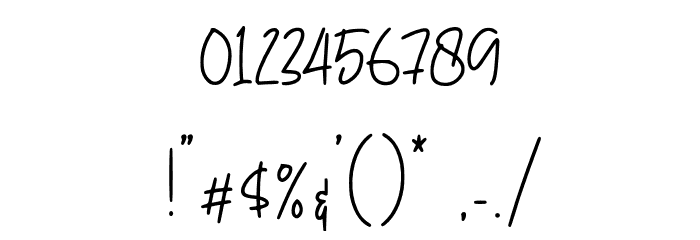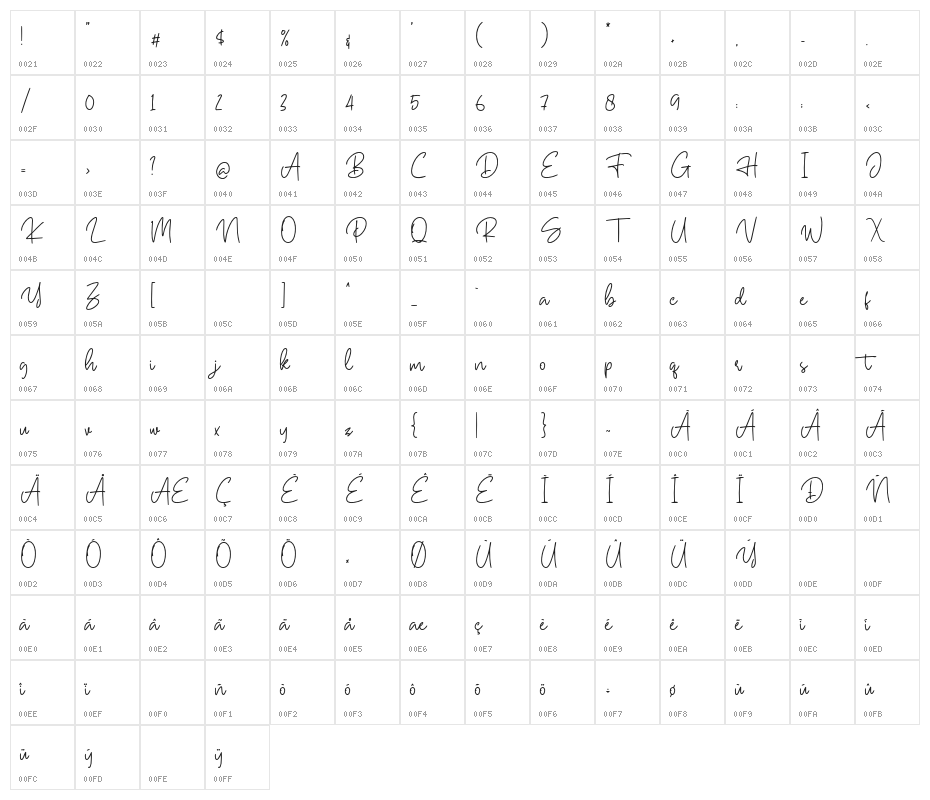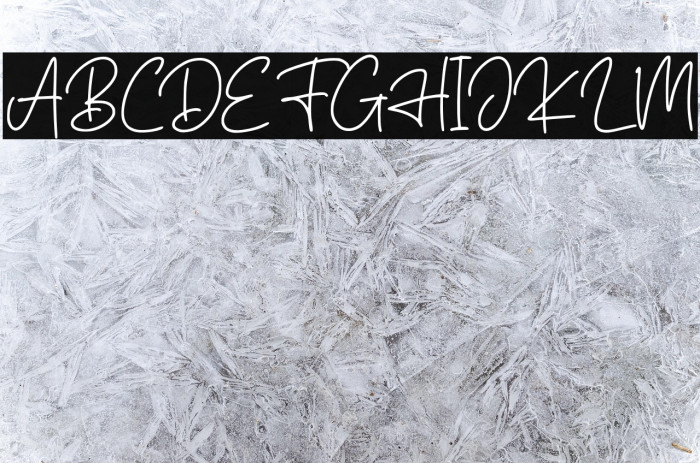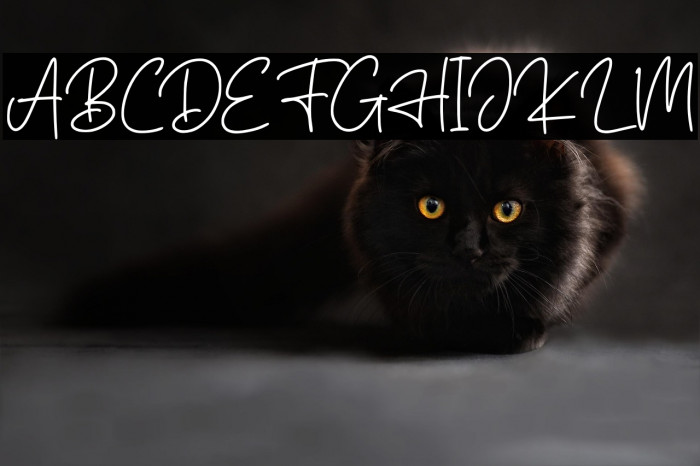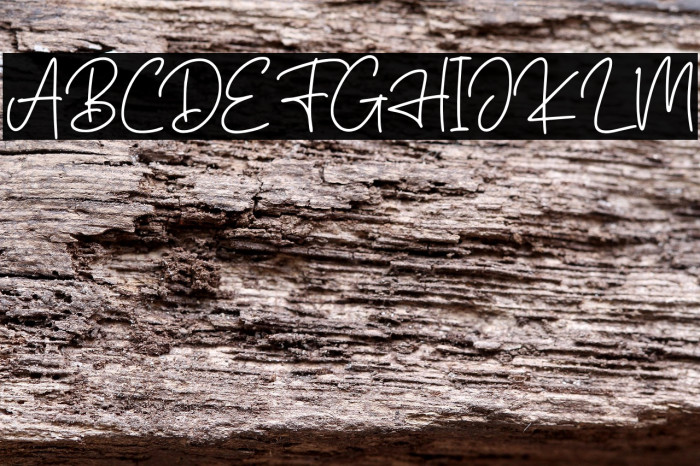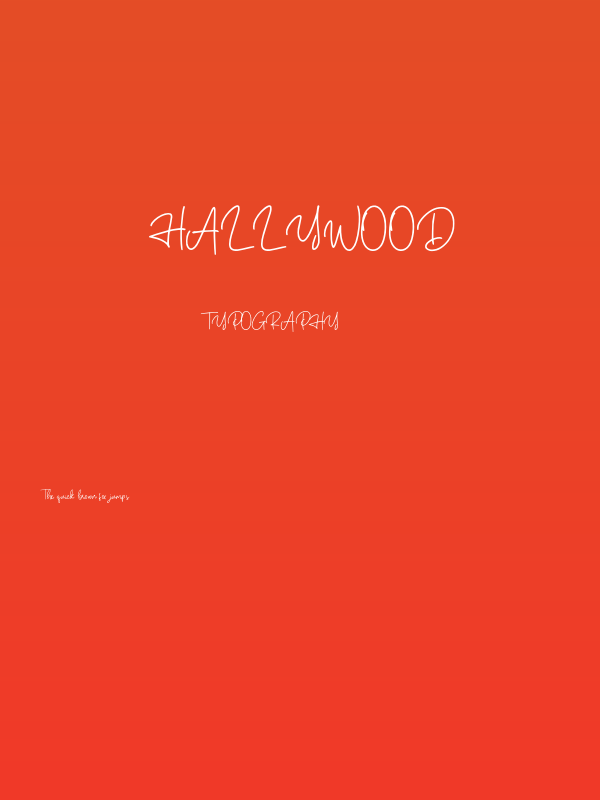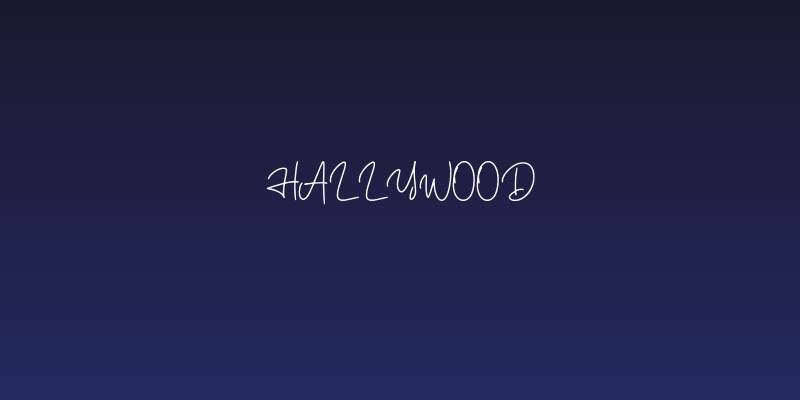
Hallywood Font
Hallywood Description
This font exudes a casual and playful handwritten style, characterized by its fluid and connected strokes. The uppercase letters are tall and slightly narrow, with a consistent slant that adds to its dynamic appearance. The lowercase letters maintain a smooth flow, enhancing readability while retaining an artistic flair. Numbers are clear and distinct, matching the overall aesthetic. Special characters are well-integrated, ensuring versatility in various contexts. This font is ideal for projects that require a personal touch, such as invitations, greeting cards, or branding materials that aim to convey warmth and approachability.
| Overall Style | Casual, Playful |
| Use Case | Headlines, Logos, Invitations |
| Proposed Projects | Ideal for invitations, greeting cards, personal branding, and creative projects. |